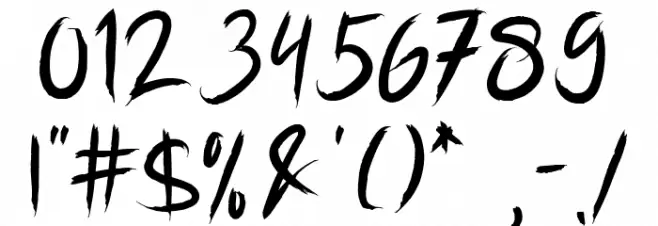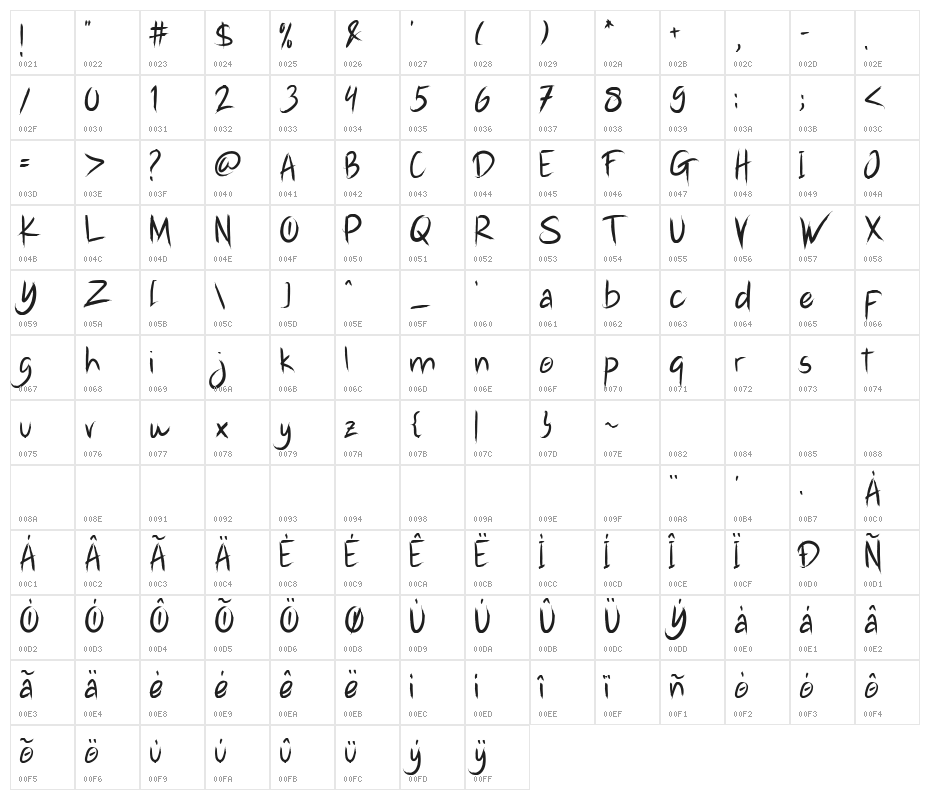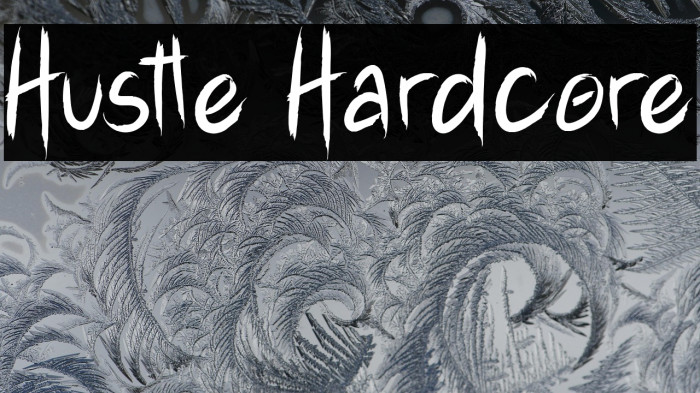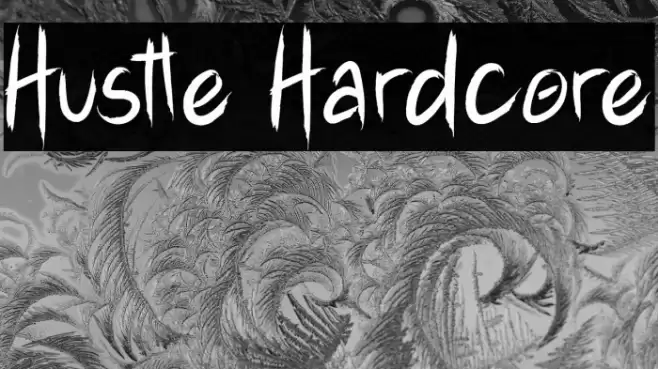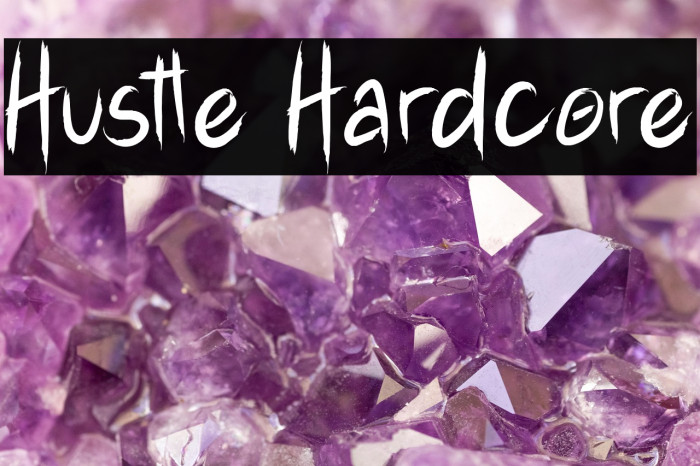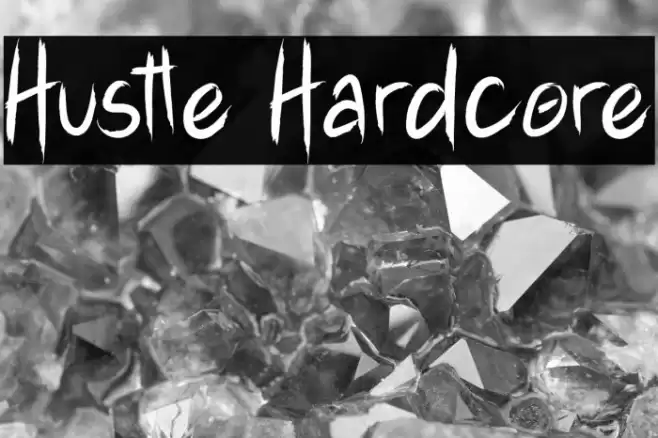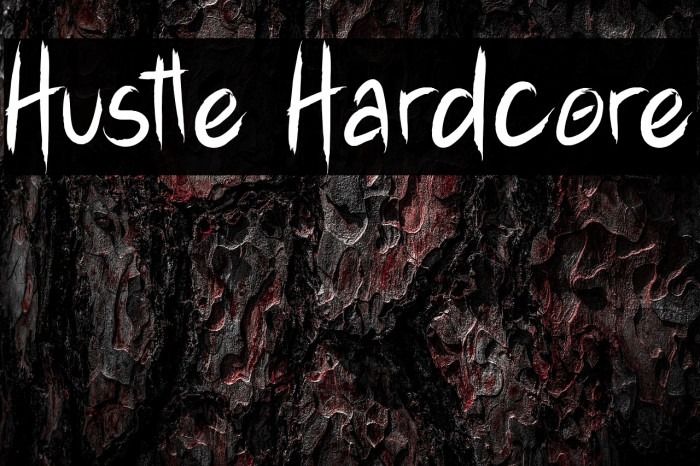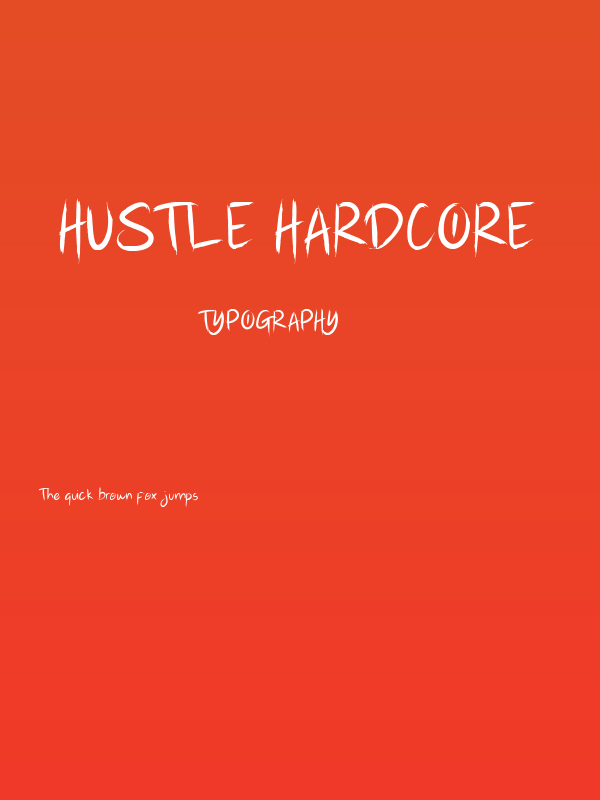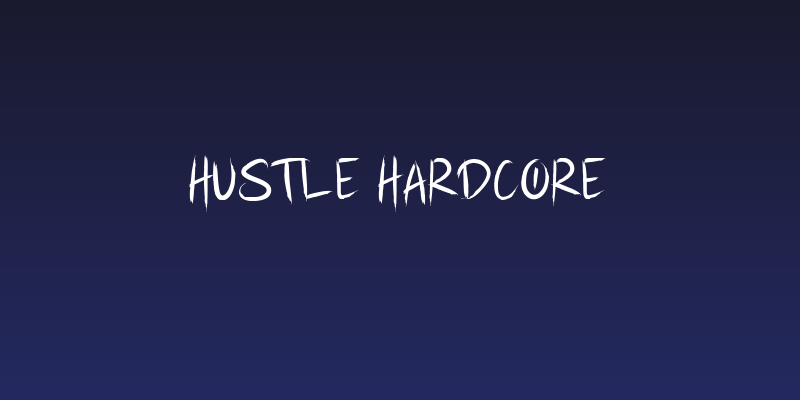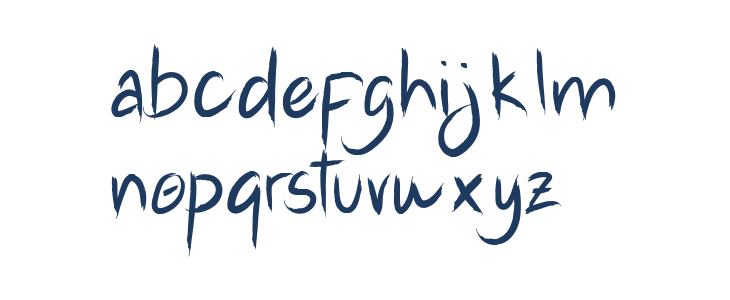
Hustle Hardcore Font
Hustle Hardcore Description
This font exudes a raw, energetic vibe with its brush-like strokes and dynamic, uneven edges. The characters are bold and expressive, capturing a sense of movement and intensity. Each letter appears hand-drawn, with varying thicknesses that add to its rugged charm. The uppercase letters are particularly striking, with sharp angles and a slightly aggressive stance. Lowercase letters maintain the same energetic style, with some characters featuring unique loops and curves. Numbers and special characters follow suit, adding to the font's cohesive, rebellious aesthetic. This font is perfect for projects that require a bold statement and a touch of artistic flair.
| Proposed Projects | Ideal for posters, album covers, streetwear branding, and any project needing a bold, artistic touch. |